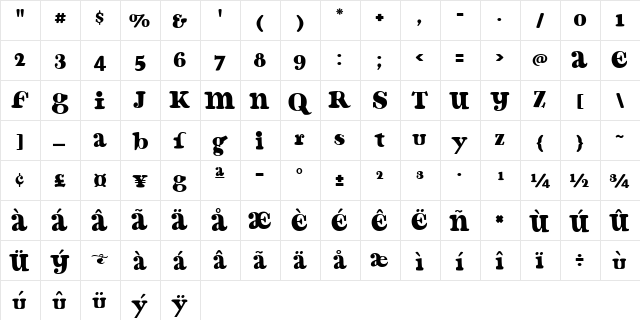
CaliforniaPosterSGA Regular
Design Context for CaliforniaPosterSGA Typeface
CaliforniaPosterSGA is a composed and adaptable typeface that performs quietly and consistently across a wide range of design contexts.
Pro Tip: Use CaliforniaPosterSGA in both headline and body roles to test its range before committing to a single application.